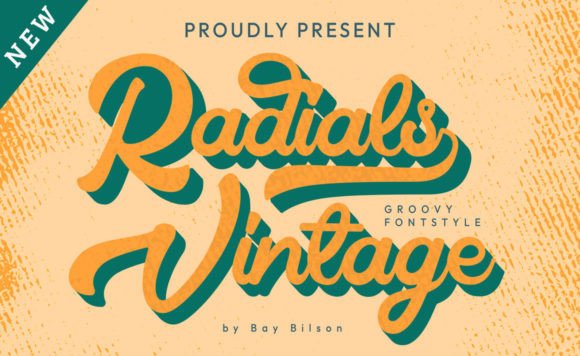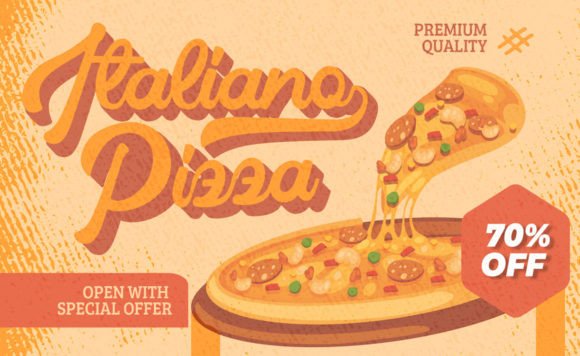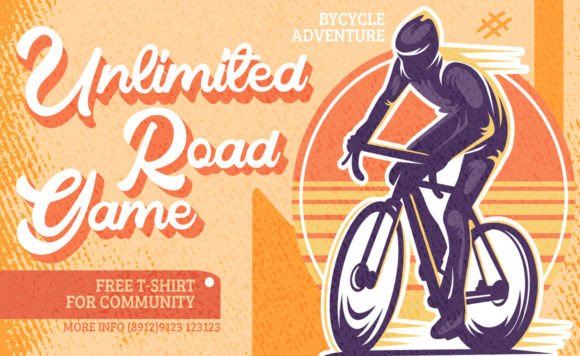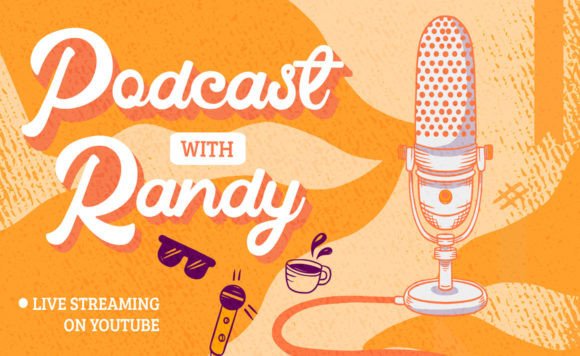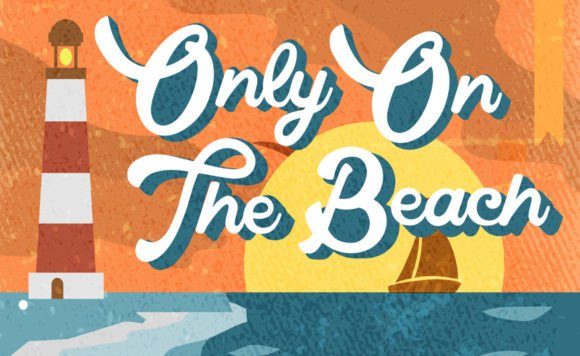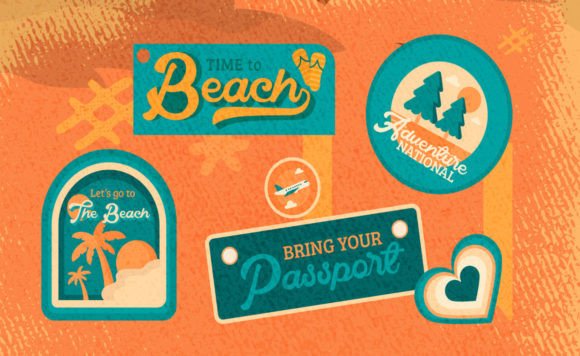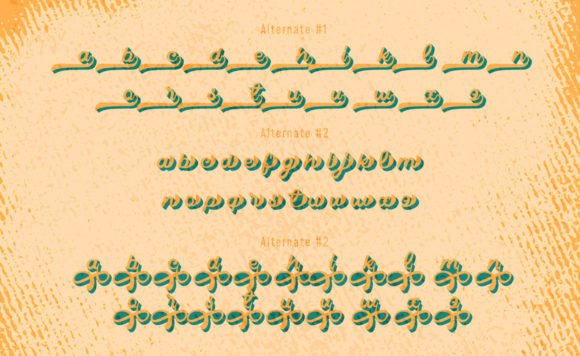
Radial Vintage Font
About Radial Vintage Font
“Radial Vintage” is more than just a font; it’s a groovy vintage script typeface designed to infuse warmth and fun into your creative projects. This font is a fantastic addition to your fonts’ library, with the potential to elevate and bring a unique character to any creation, regardless of the topic.
The charm of “Radial Vintage” lies in its groovy and vintage script style. Its warm and fun atmosphere makes it an ideal choice for projects where you want to evoke a sense of nostalgia or add a playful touch. Whether used for retro-inspired designs, posters, branding, or any creative endeavor, this font brings a distinctive and memorable character.
Imagine “Radial Vintage” transforming your designs into a blast from the past, where its vintage script style imparts a sense of nostalgia and authenticity. Picture it used in posters, creating a groovy and eye-catching visual appeal. Envision this font enhancing branding projects, making your designs stand out with a unique and retro vibe.
One of the standout features of “Radial Vintage” is its ability to create a warm and inviting atmosphere, making it a versatile choice for a range of design contexts.
Whether you’re working on retro-inspired designs, posters, branding, or any other creative endeavor, “Radial Vintage” offers a groovy vintage script typeface that adds a warm and fun touch to your creations. It’s not just a font; it’s a creative asset that brings character and personality to your projects. Let “Radial Vintage” be the vintage script font that transforms your creations into visually captivating and memorable works of art.